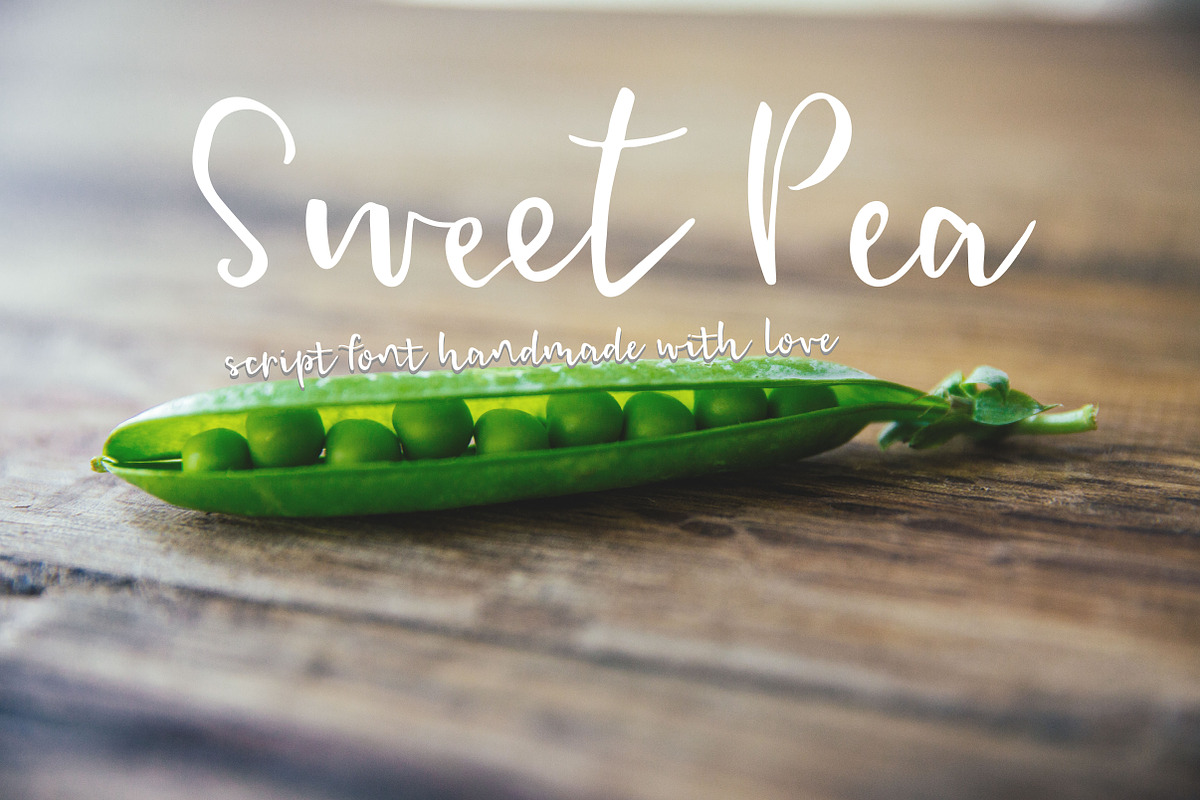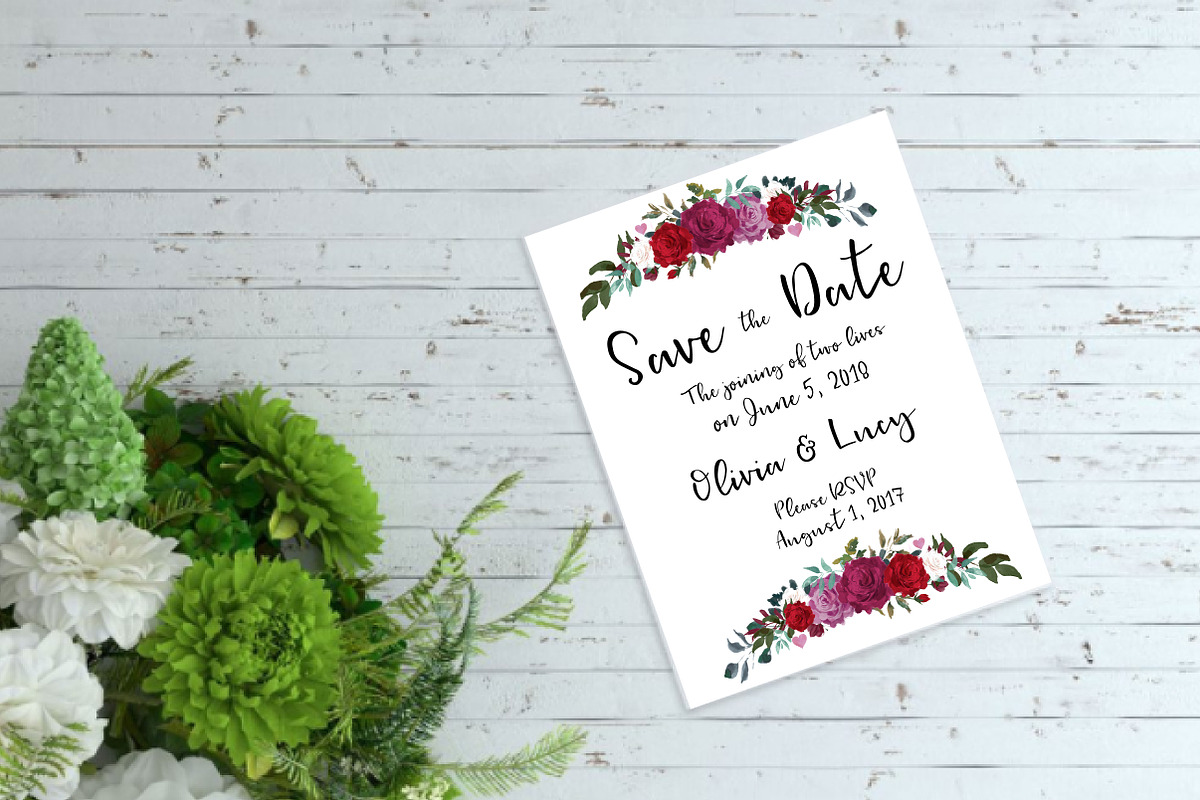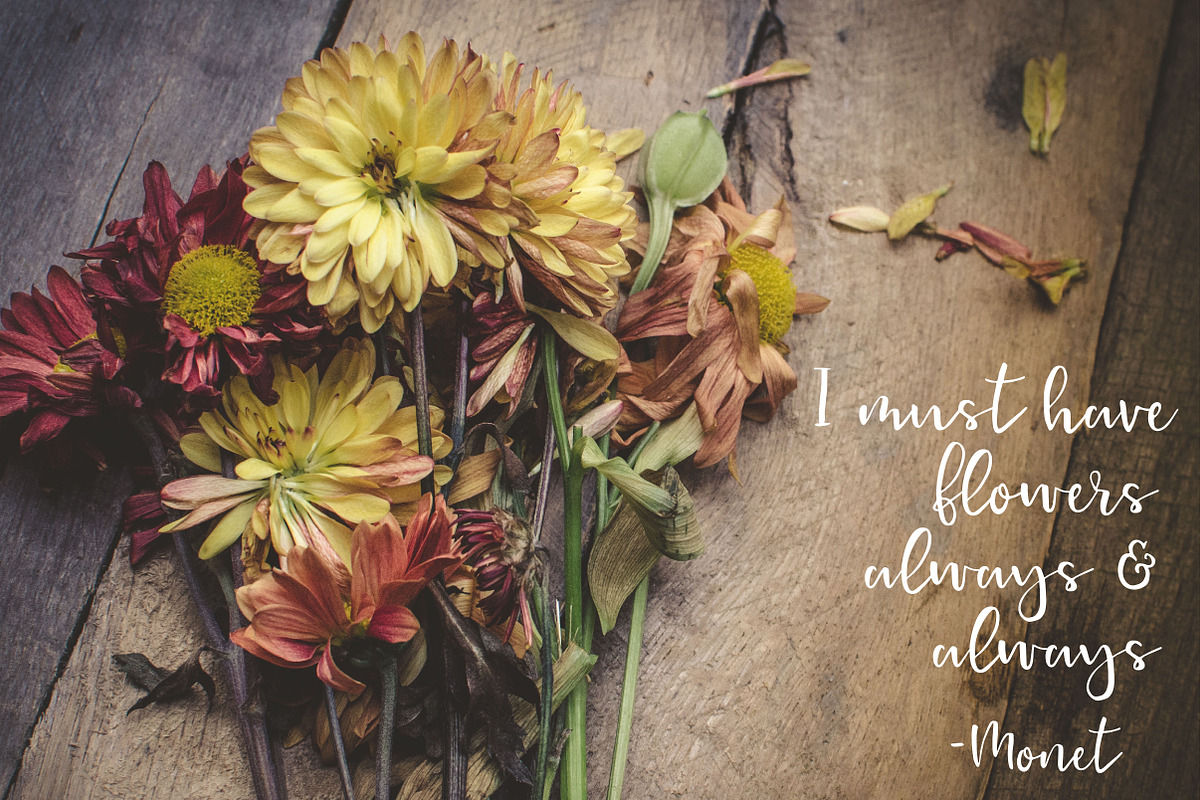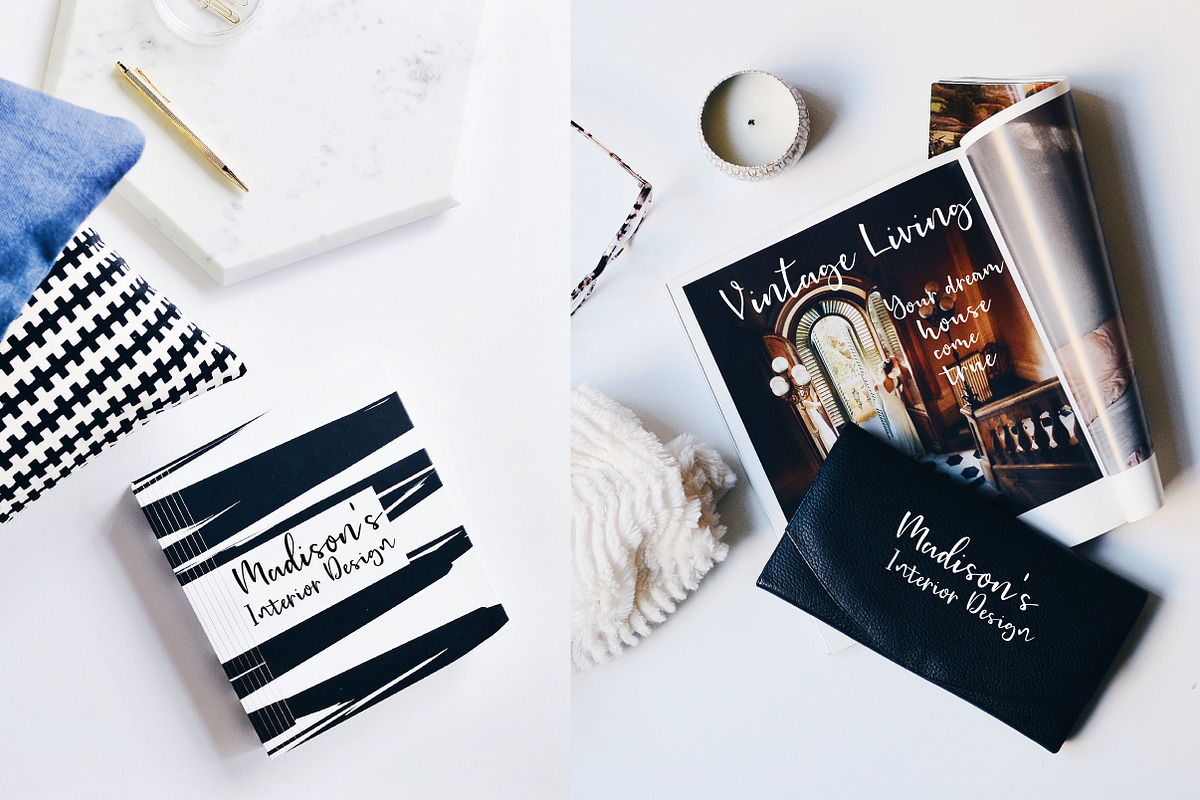
Sweet Pea - Handmade Script Font
Say hello to Sweet Pea - a handmade script font made with love. Modern brushlettering with bounce and a touch of class.
Sweet Pea includes standard characters as well as lowercase stylistic alternates and ligatures to create a different mood with your lettering.
Perfect for company logos, invitations, product packaging, and anything else you want to give a handlettered feel to your design.